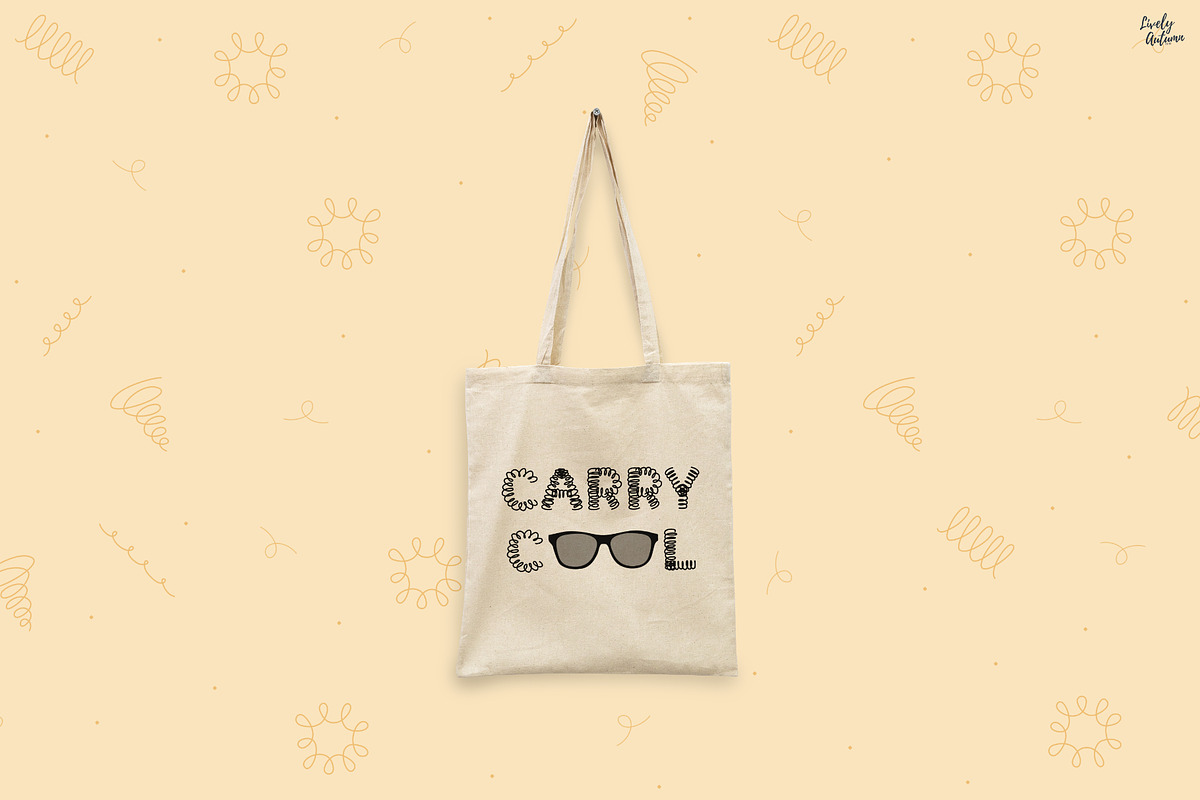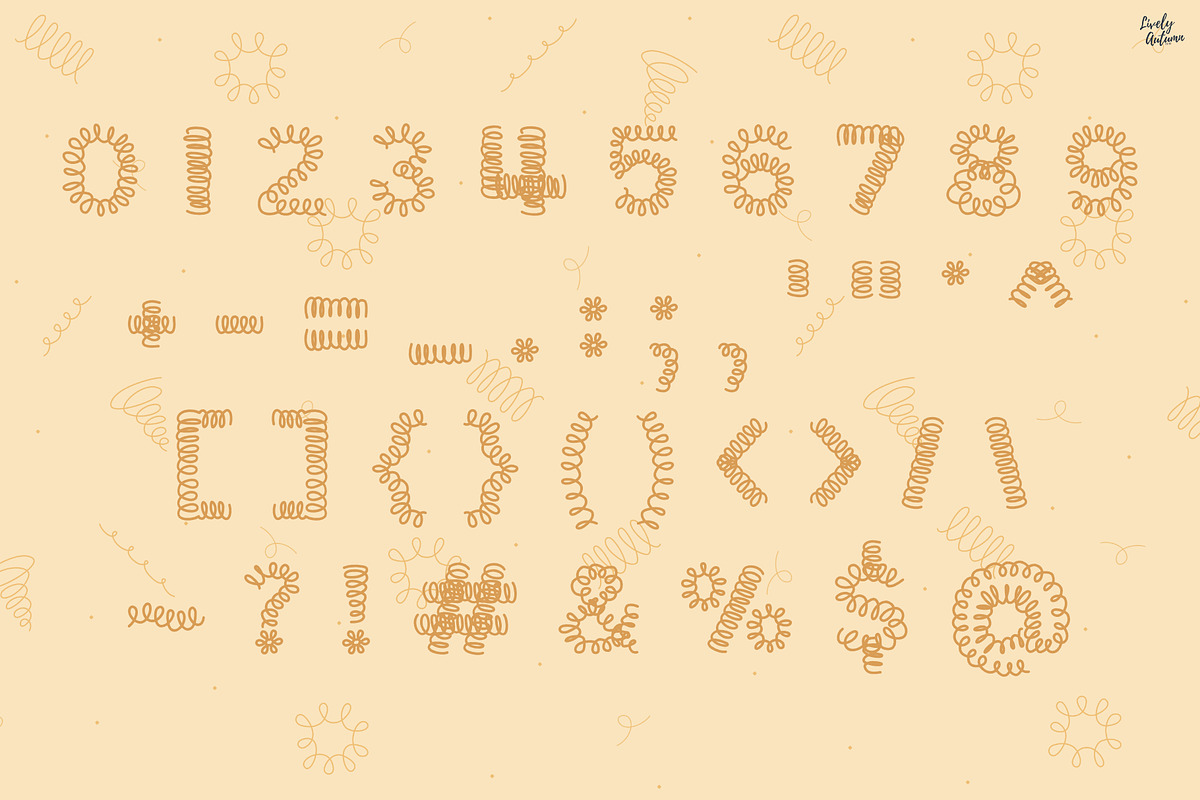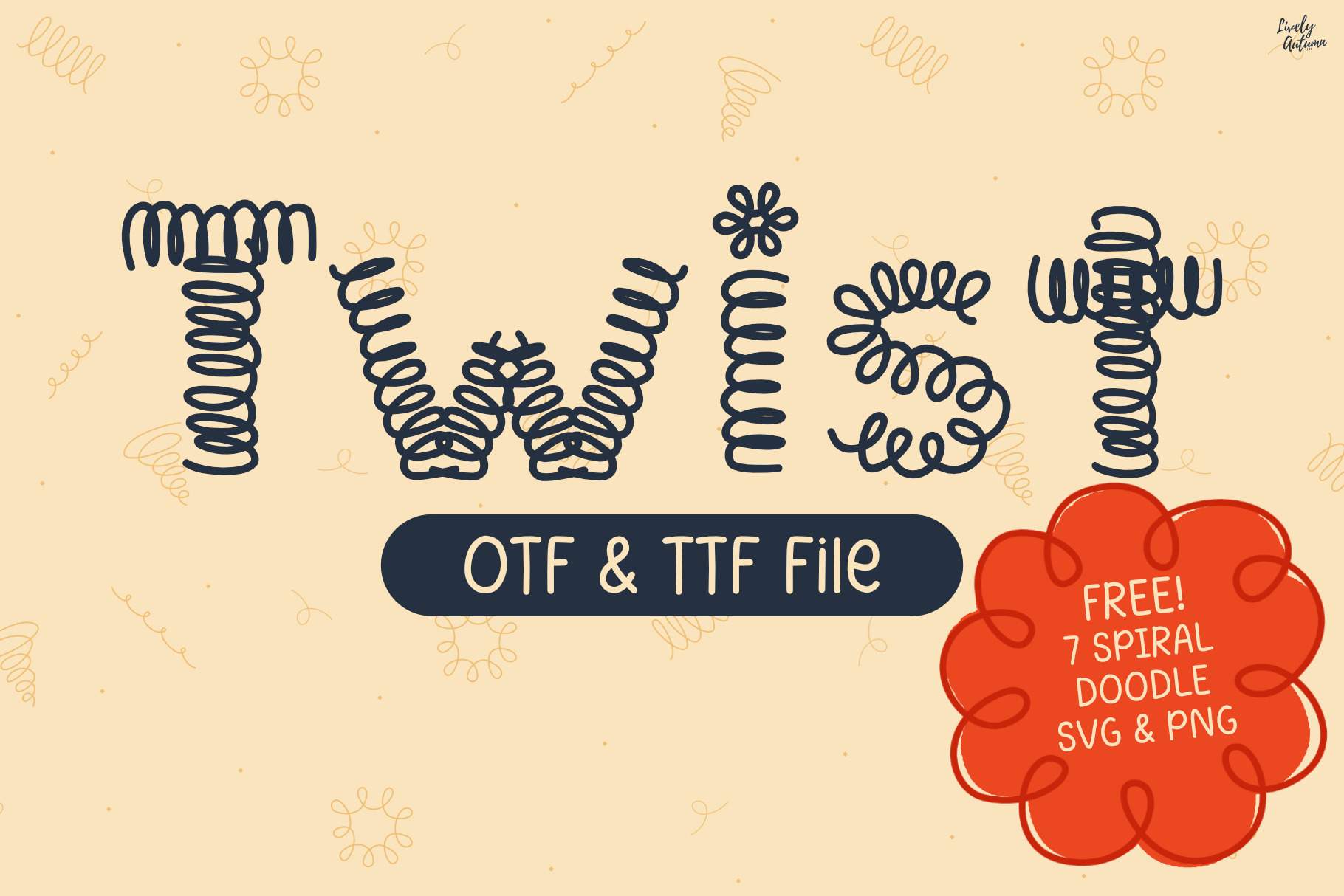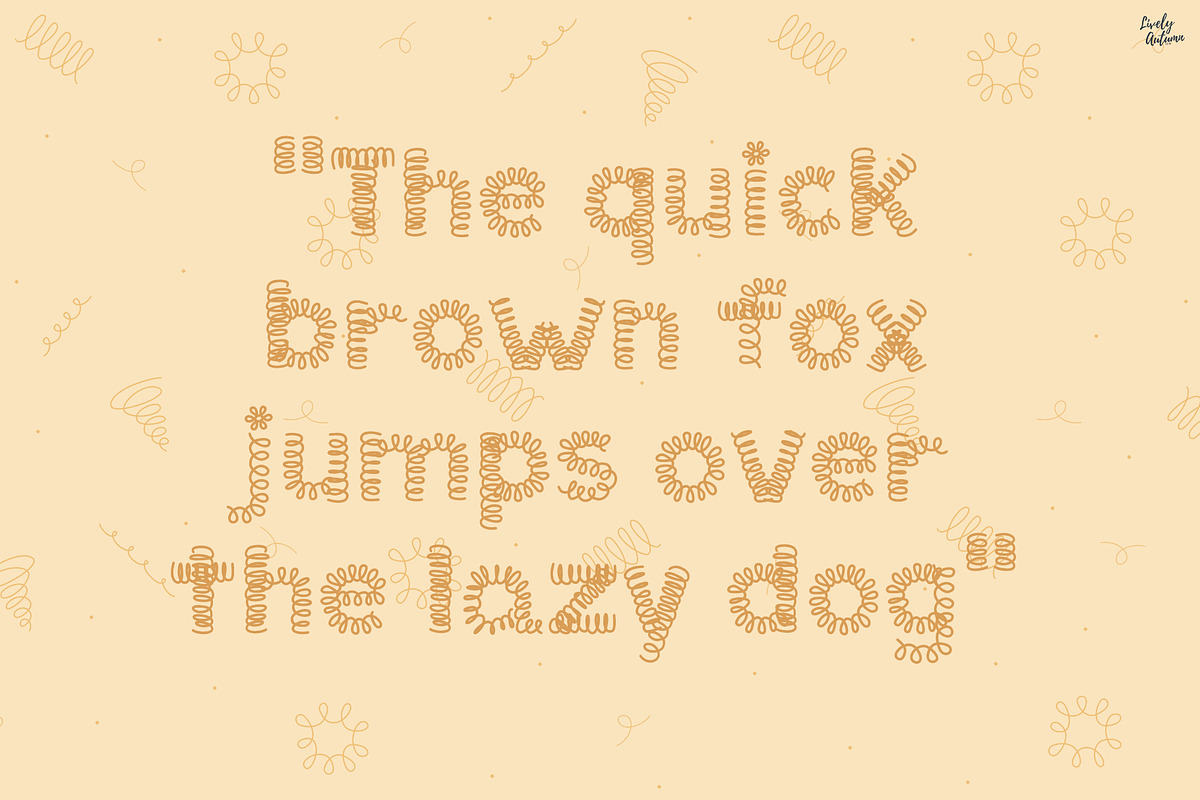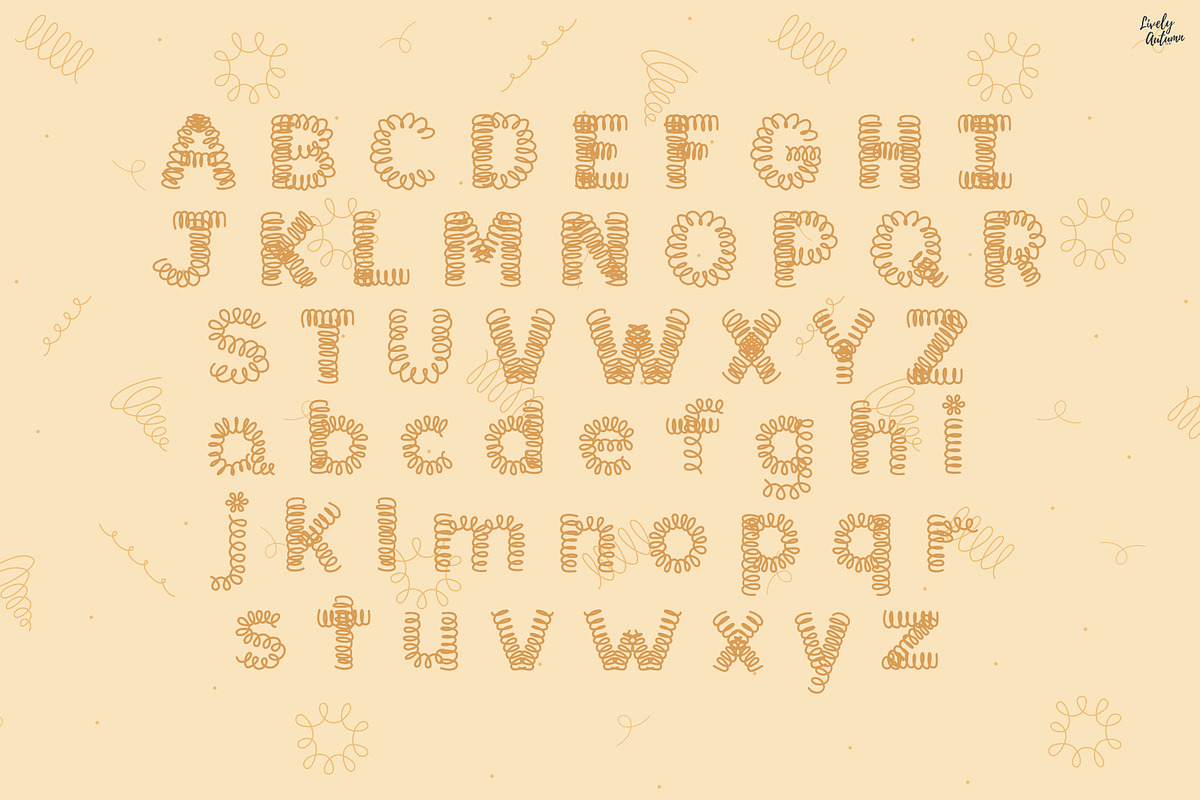
Twist n Whirl | Playful Display Font
Twist n Whirl is a playful handwritten font where every letter twists and twirls like a spring coil, full of movement and fun! Perfect for your personal projects and various projects. From invitations to posters, social media graphics, journals, stickers and much more.
- Font includes: uppercase, lowercase, numbers, and punctuation